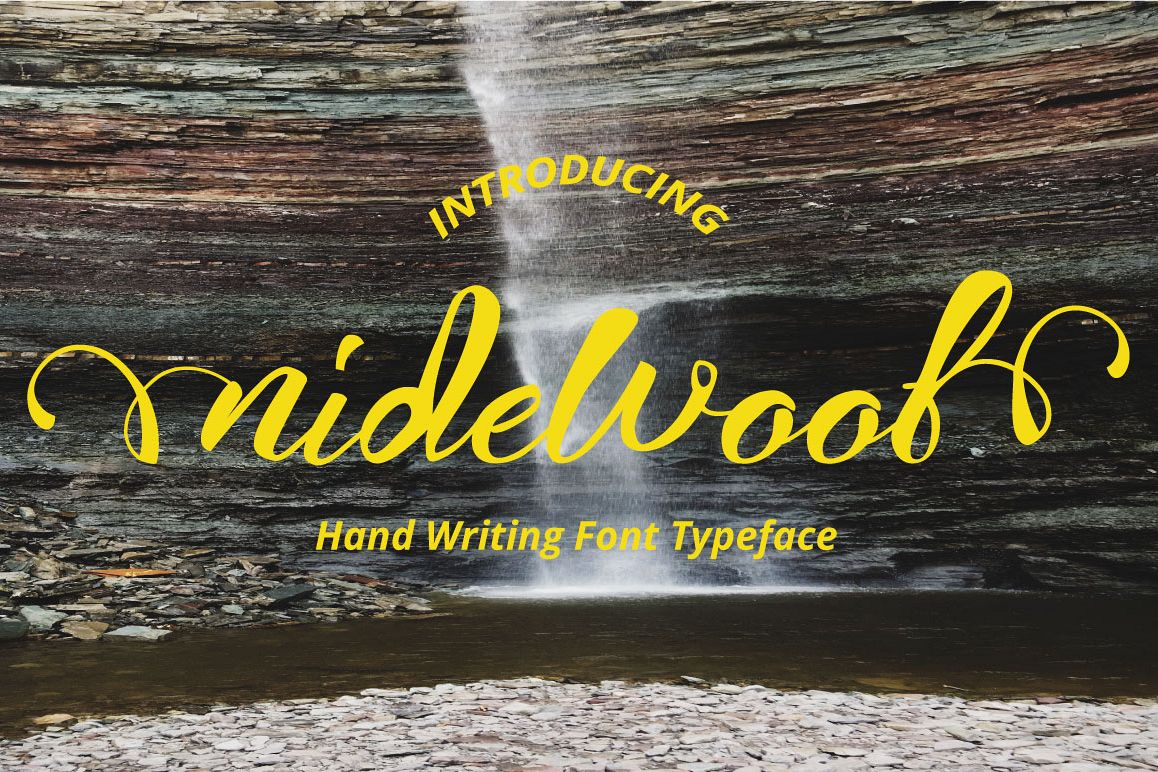
nidewoof font
we are come to you nidewoof handwriting typeface, with a model of cool at the moment, please download for current to charge the typeface of your toolbox with a nice font I am sure you will be more eager to make, signature, wedding cards, letterheads, logos, T-shirts, and everything in between. With many OpenType features available, you can create and arrange with good style and perfect. Fonts are provided in TTF & OTF formats.Use Format :